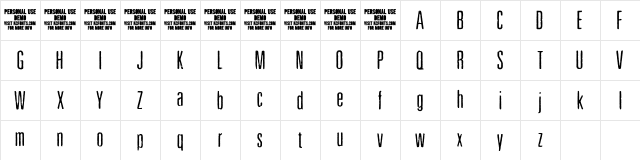
Complete Pewter Regular glyph index. Displaying only characters natively supported by Pewter Regular font.
Pewter is a composed and adaptable typeface that performs quietly and consistently across a wide range of design contexts.